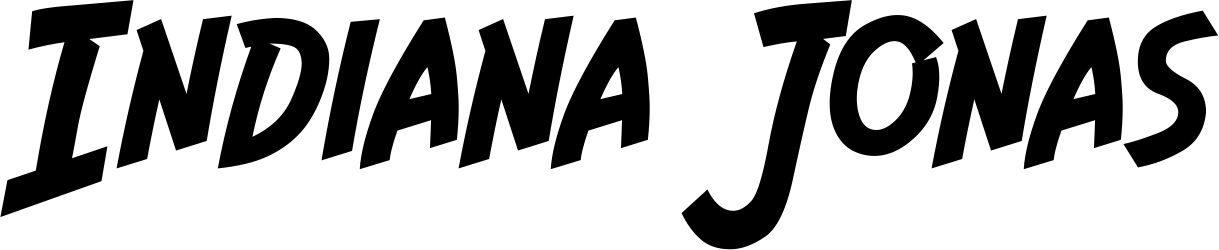
Indiana Jonas Font
Indiana Jonas is the perfect solution for all your comic font needs. It’s a stylish and professional font that’s perfect for use in logos, titles, and other design projects. you can use Indiana Jonas for any project you…
Indiana Jonas is the perfect solution for all your comic font needs. It’s a stylish and professional font that’s perfect for use in logos, titles, and other design projects. you can use Indiana Jonas for any project you need it for. Try it out today and see the difference it makes!
My take on the font from Indiana Jones logo using OpenType features to simulate the perspective distortion. It’s not the exact replica but I hope it keeps the vibe. =)
The public version of the font intentionally does not include number 0.